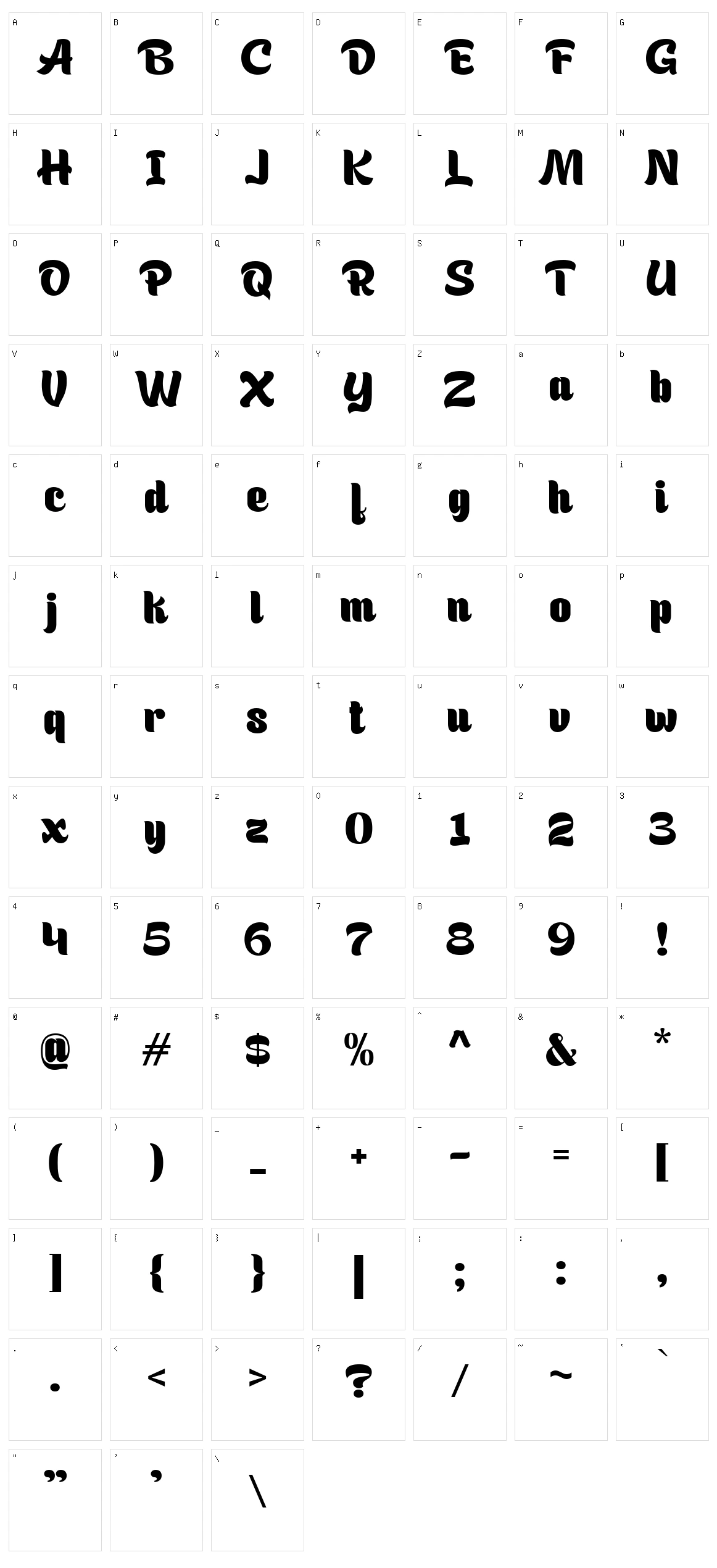
The free font Boldblaster is carefully designed by Sign Studio, showcasing a thoughtful balance of creativity and usability and falls under the Groovy font style. When you download the ZIP file, it contains only 96.97 KB of font files, making it lightweight and quick to download. Please review the license details below to understand permitted usage and distribution rights. If license information is not available, we recommend using this font for personal projects only or contacting the author directly for commercial usage permissions.